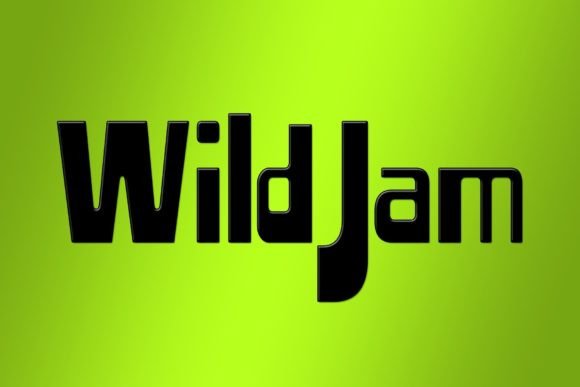
Introducing Wild Jam - The Untamed Font that Unleashes Your Creative Spirit!
In the realm of design, fonts hold the power to ignite ideas, evoke emotions, and captivate audiences. Wild Jam, a captivating display font, stands as a testament to this transformative power.
Crafted with the meticulous precision of a seasoned artisan, Wild Jam exudes a raw and untamed energy that is sure to leave an unforgettable mark on your designs. Its bold strokes and energetic curves dance across the page, inviting you to unleash your creativity and explore uncharted territories of expression.
Whether you're a seasoned designer seeking inspiration or a budding artist eager to make a statement, Wild Jam is the perfect companion. Its versatility empowers you to inject personality and flair into a wide range of creative endeavors.
Imagine your designs adorned with the bold and captivating presence of Wild Jam. Envision your t-shirts becoming canvases for eye-catching statements, your posters radiating an irresistible allure, and your social media posts bursting with a vibrant energy that commands attention.
But Wild Jam's allure extends far beyond its aesthetic appeal. It's a font that speaks to the heart, stirring emotions and inspiring a sense of freedom and adventure. Its untamed spirit resonates with those who dare to embrace the unconventional and forge their own path.
So why settle for ordinary fonts when you can unleash the extraordinary power of Wild Jam? Its unique character and captivating energy will empower you to create designs that leave a lasting impression.
Embrace Wild Jam today and let your creativity run wild. Its bold strokes and untamed spirit will ignite your imagination and guide you on an unforgettable journey of artistic expression.